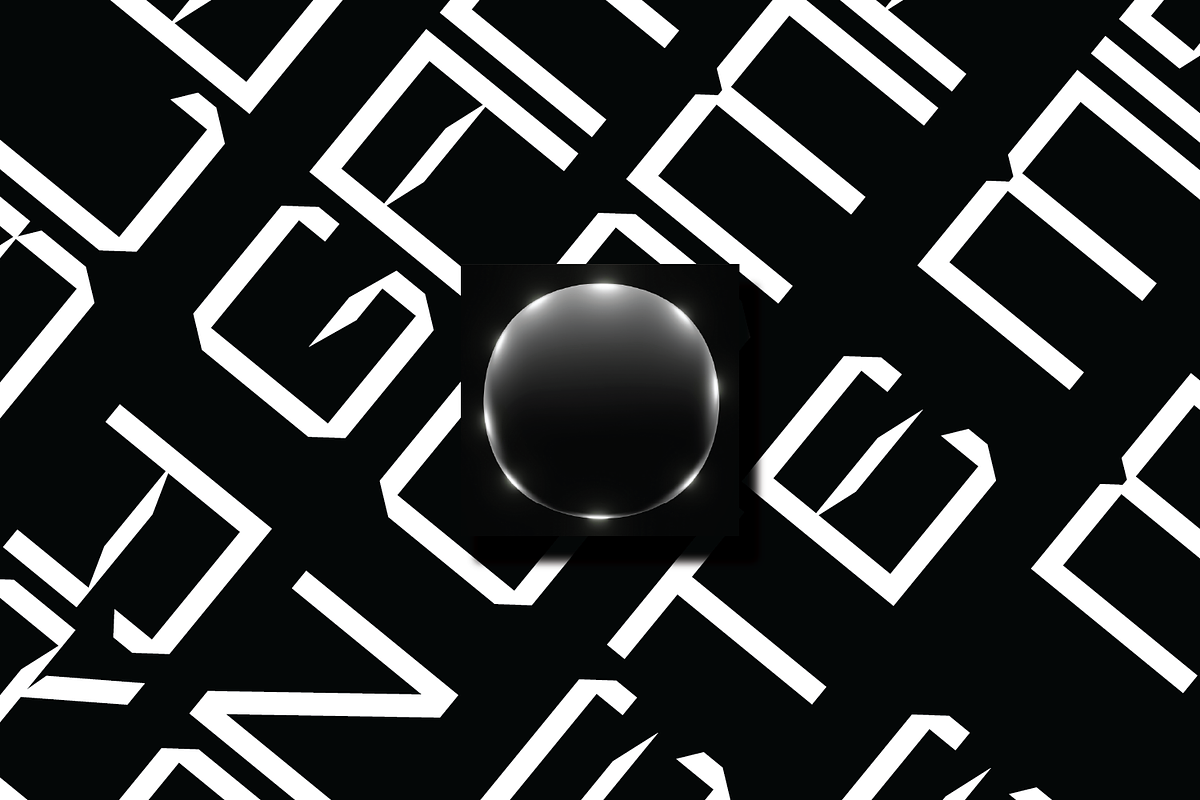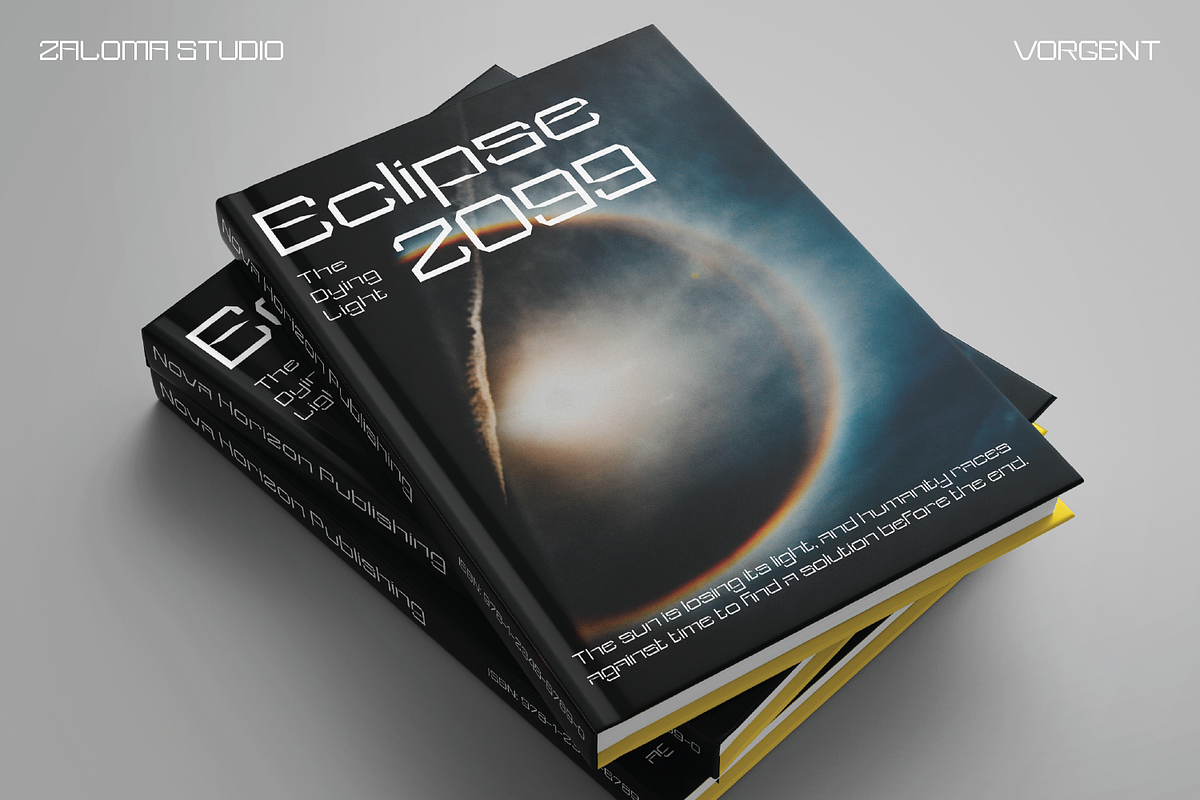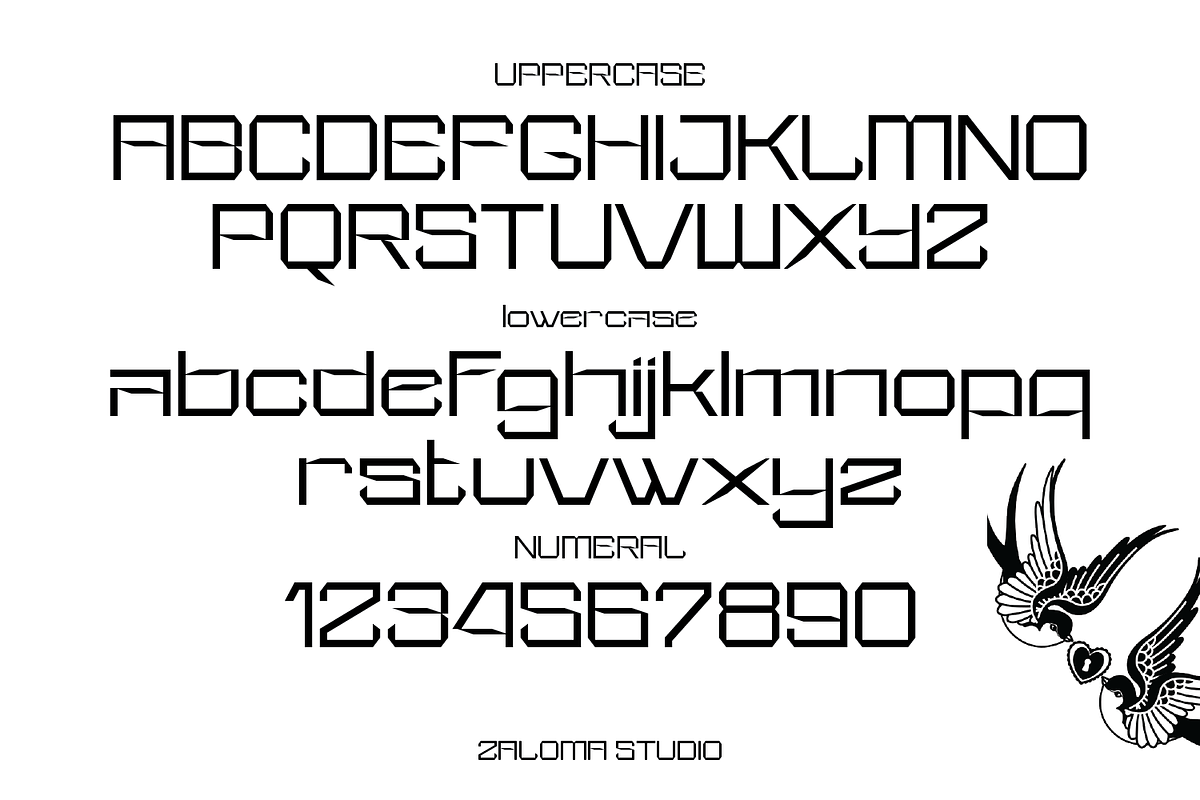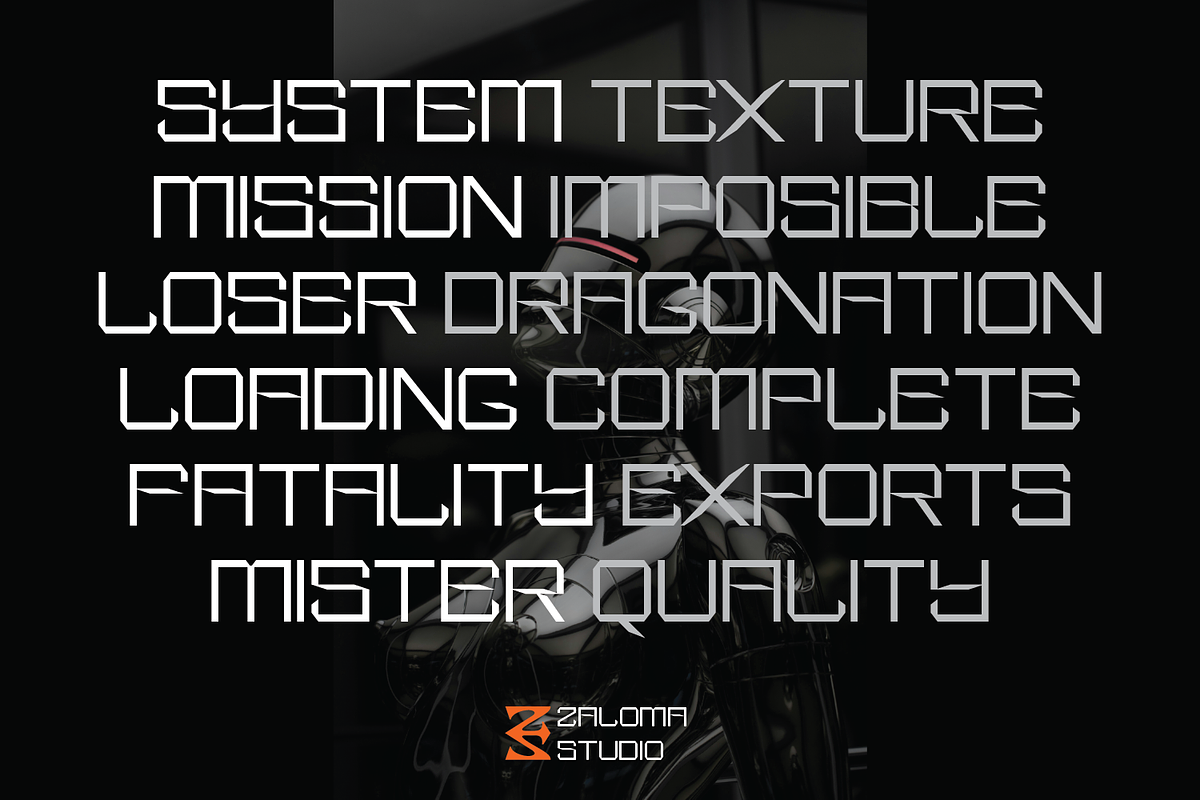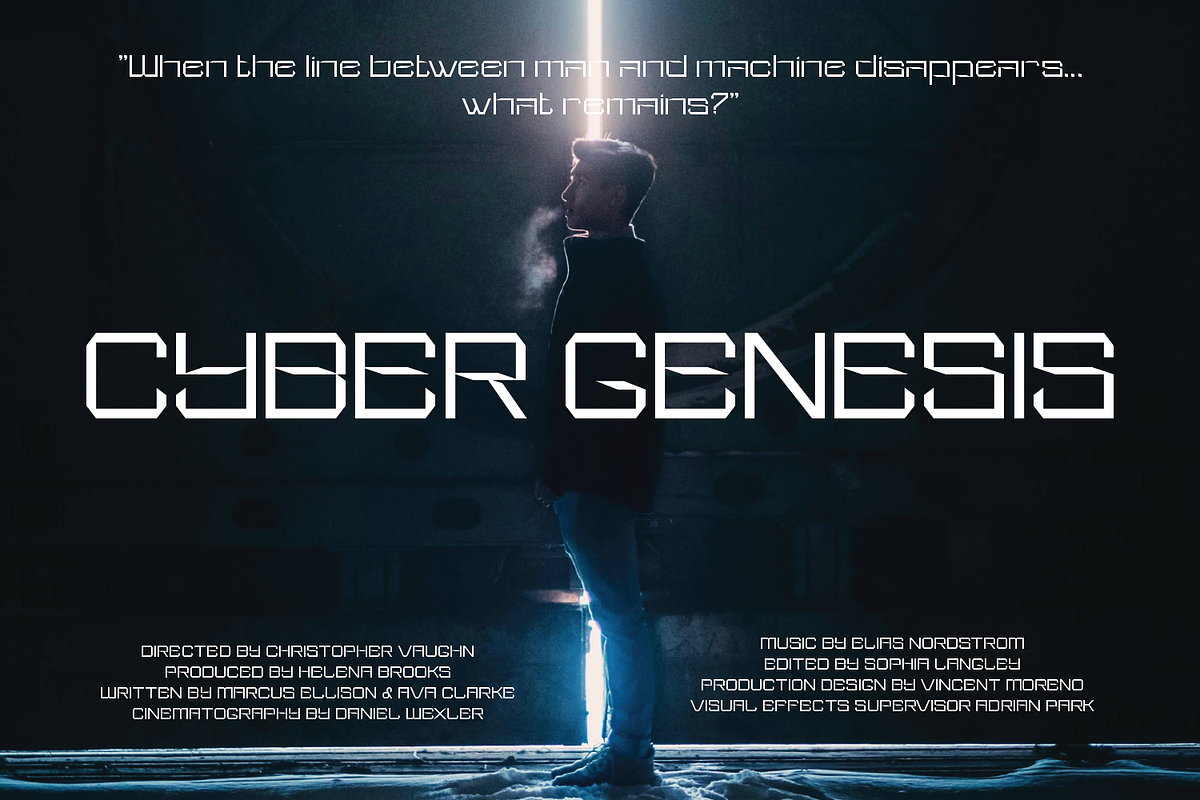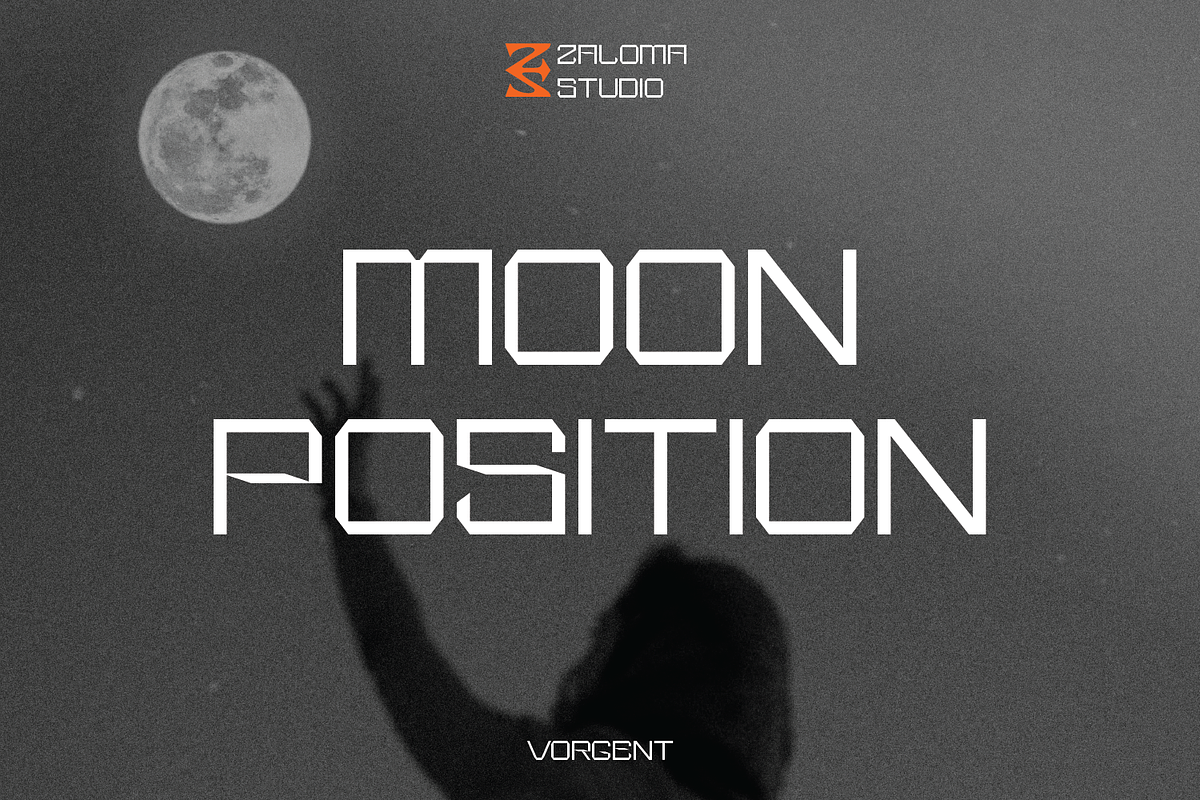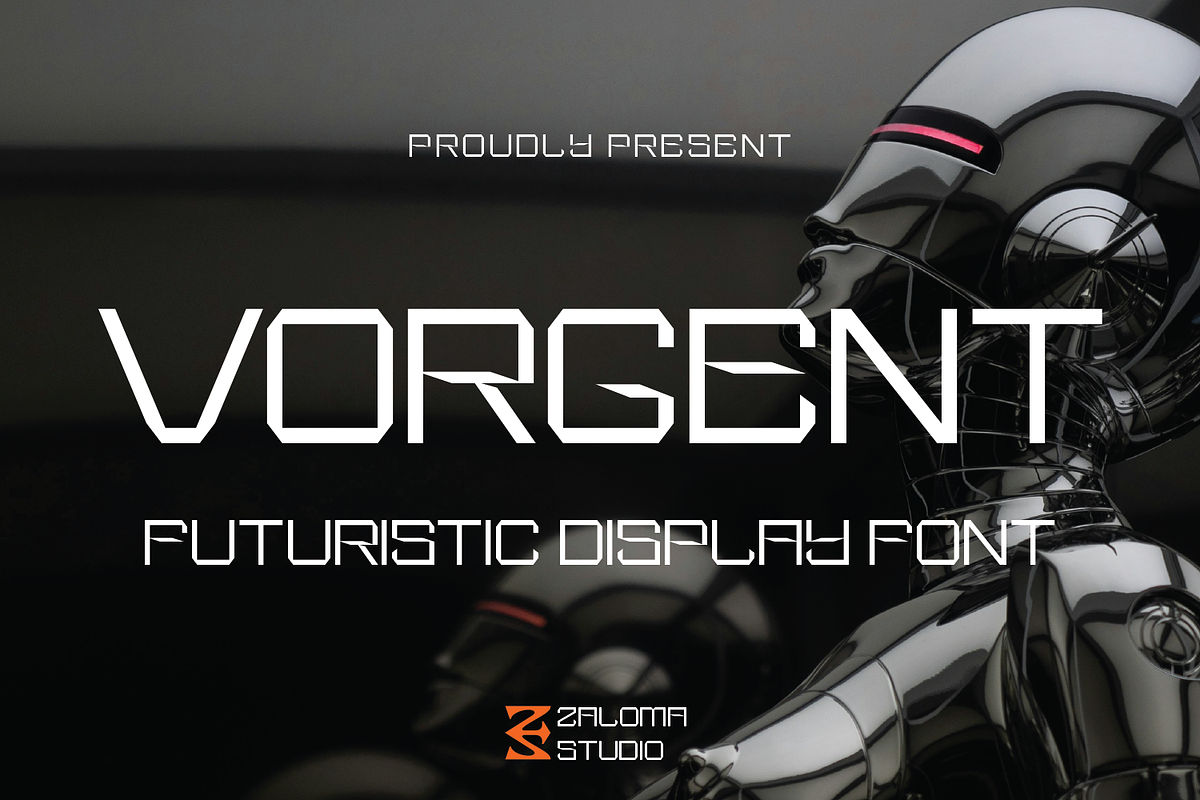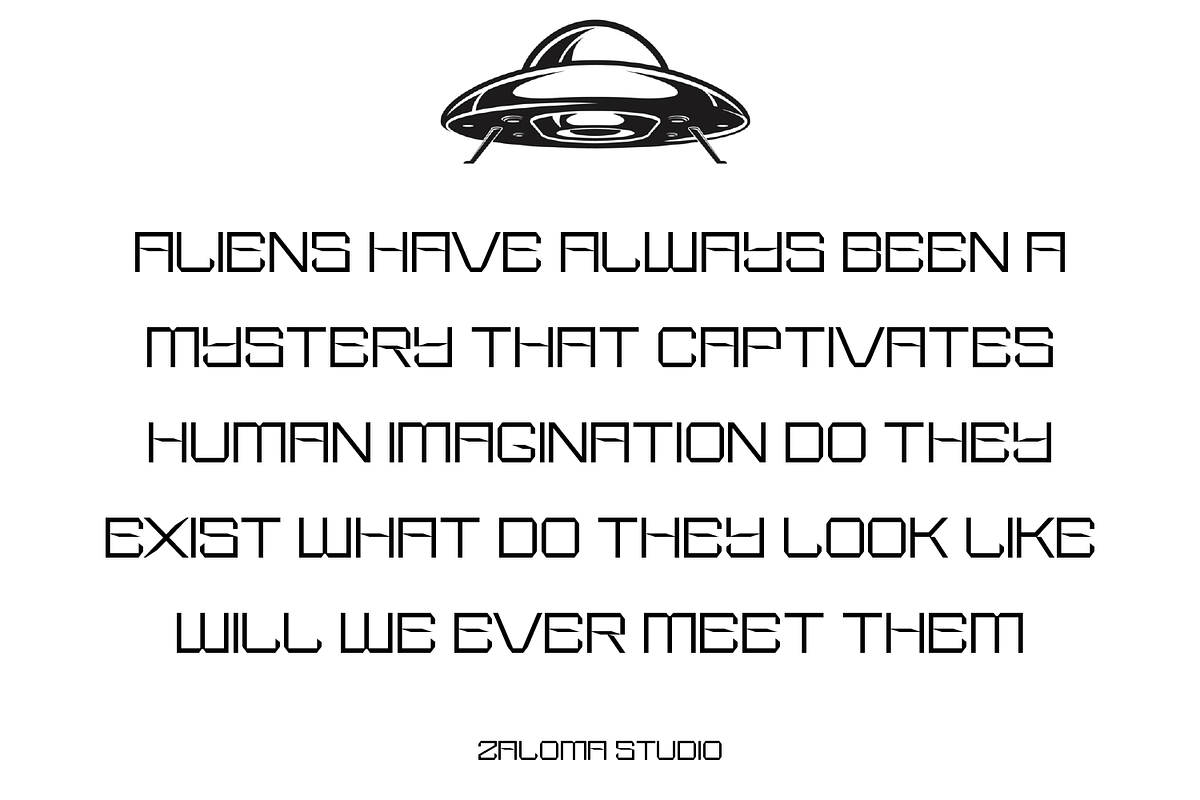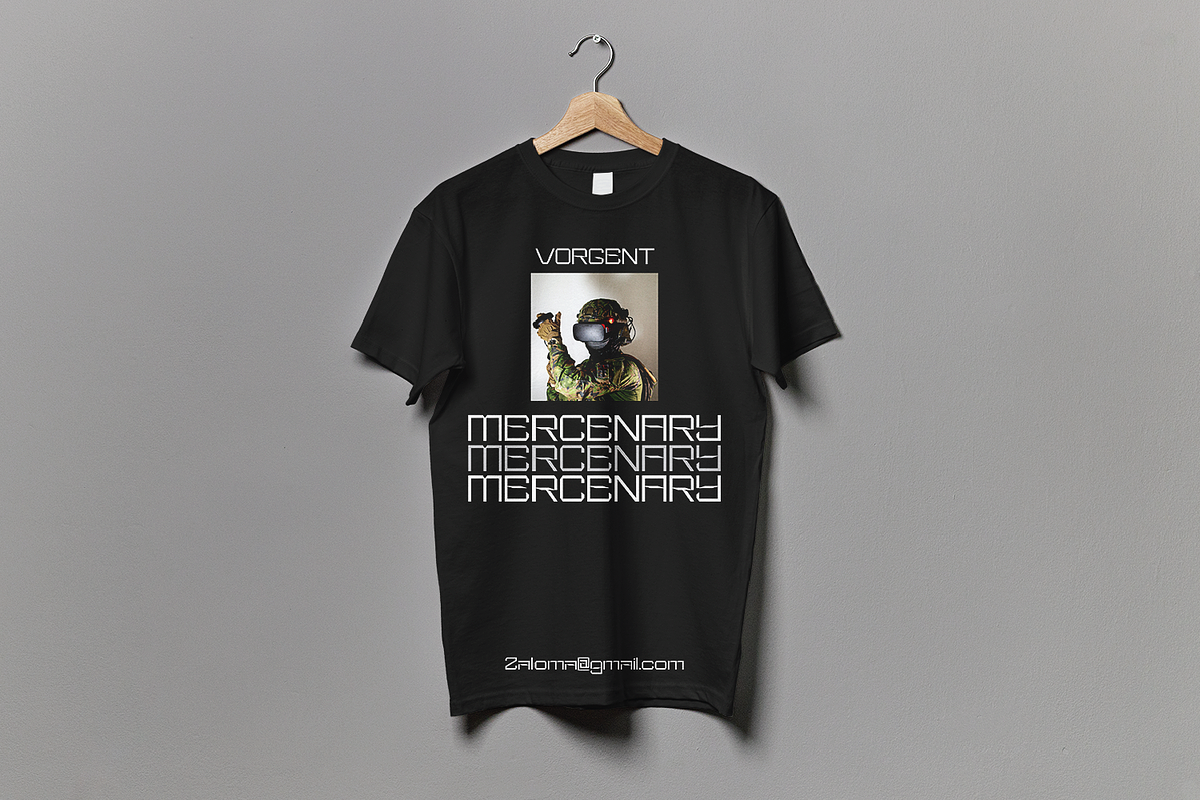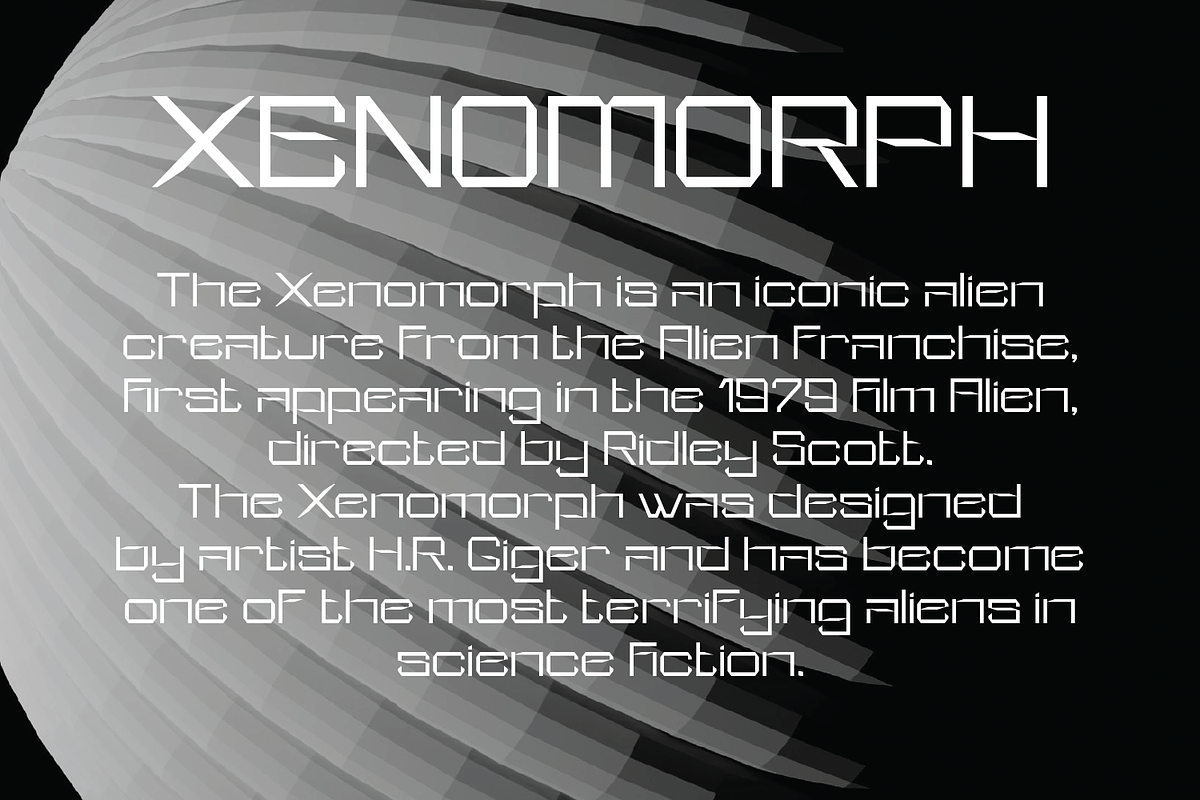
Vorgent
Vorgent is a futuristic display font designed by Zaloma Studio. This font features a modern look with sharp, geometric letterforms that convey a high-tech aesthetic. It is ideal for sci-fi, cyberpunk, technology, gaming, and futuristic branding designs.
Futuristic Style: Incorporates sharp angles and geometric elements to create a modern appearance. Uppercase and Lowercase Letters: Available in both uppercase and lowercase with a unique design.
Numerals: Includes numbers that match the overall style of the font. Digital & Sci-Fi Aesthetic: Perfect for technology, gaming, digital interfaces, or any project that embraces a futuristic concept.